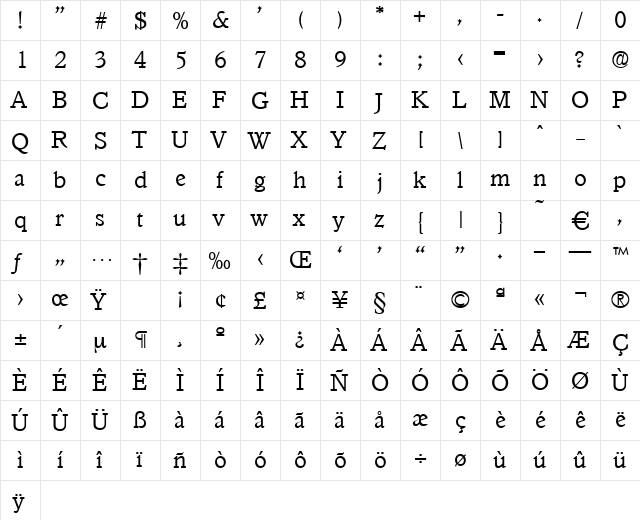
Granada-Light Regular
Design Context for Granada-Light Typeface
Granada-Light is a composed and adaptable typeface that performs quietly and consistently across a wide range of design contexts. Its slender proportions lend an understated elegance to any composition.